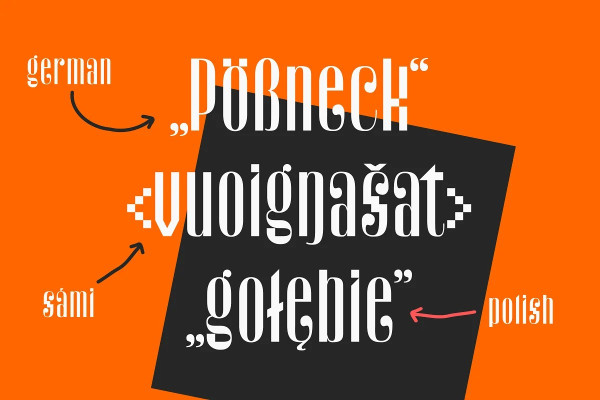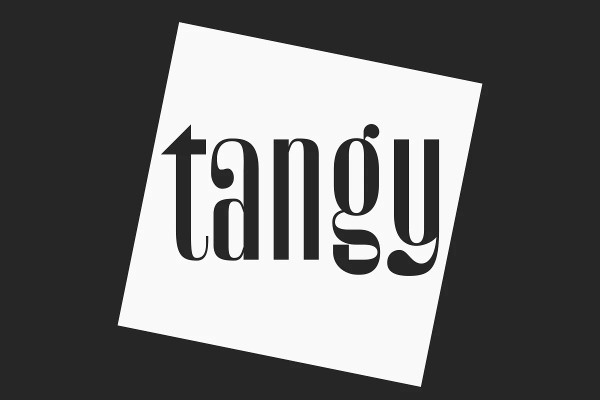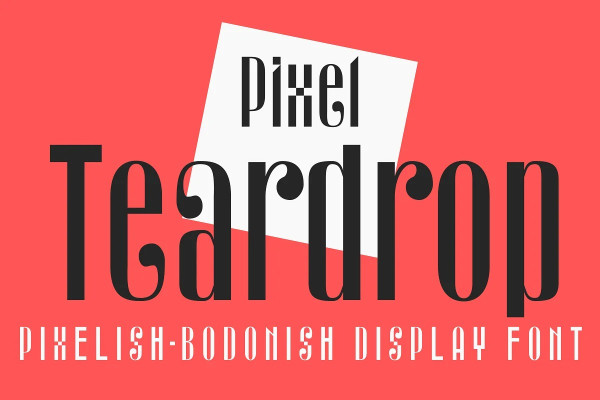
Pixel Teardrop Font
Pixel Teardrop Font is a unique and quirky display font combining machine-like rigidity of pixel fonts with calligraphic tradition. It really shines at large sizes, and is perfect for logos, posters and magazine titles.